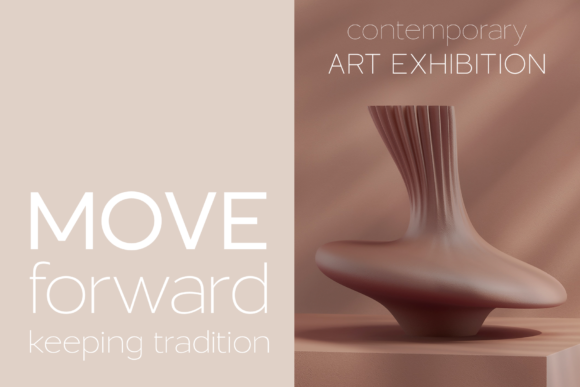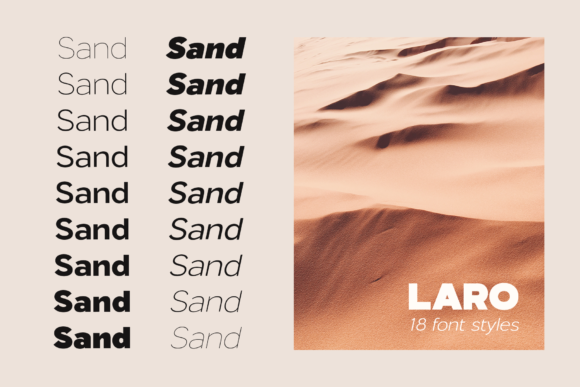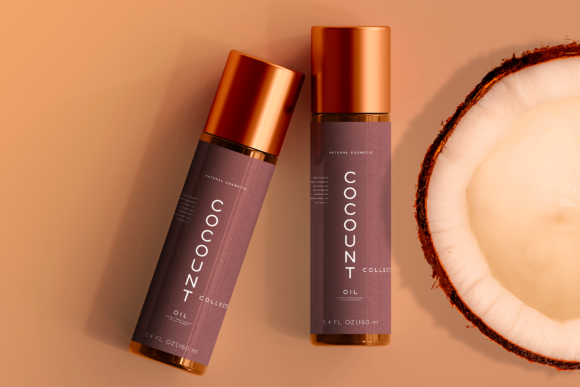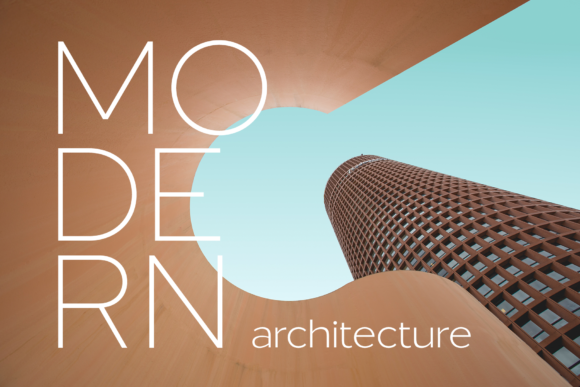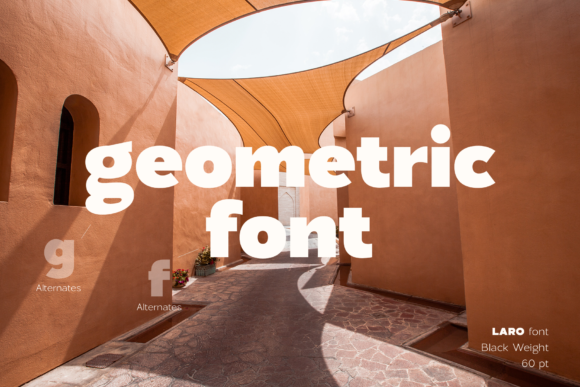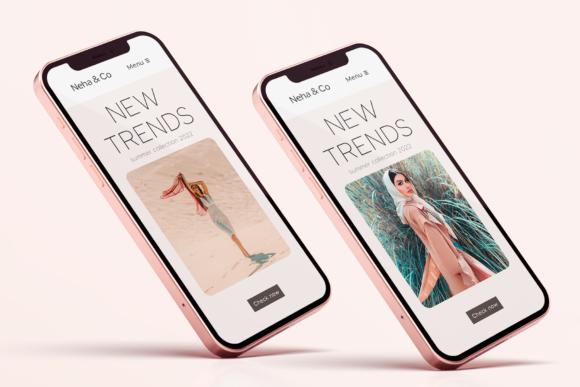
Introduction to Laro Font
As a creative person, have you ever felt like your design project is missing that special something to make it stand out? Maybe you’ve been staring at a blank page, trying to find the perfect font to elevate your idea. I know I have. But what if I told you that there’s a simple yet powerful font that can take your creative project to the next level?
Meet the Laro Font, a stunning sans-serif font that’s perfect for adding a touch of personality to your designs. With its thick, bold letters, this font is sure to grab attention and leave a lasting impression. And the best part? It’s free to download, making it an invaluable design resource for anyone looking to add a high-quality touch to their work.
Whether you’re a seasoned designer or just starting out, the Laro Font is a valuable addition to your toolkit. Its transparent background and clean lines make it a versatile choice for a wide range of projects, from branding and labels to cards and more.
Key Features of Laro Font
- High-quality design resource suitable for creative projects with a transparent background, allowing for versatile use.
- Includes multiple font styles and weights, offering users a range of options for their design needs.
- Designed with a modern aesthetic, the Laro Font is ideal for use in digital and print projects, including logos, branding, and marketing materials.
- Perfect for designers, artists, and creatives working on high-quality projects, the Laro Font offers a professional and sophisticated look.
Honest Review: Laro Font
As a designer, I’m always on the lookout for high-quality design resources that can elevate my creative projects. The Laro Font is one such resource that caught my attention, and I’m excited to share my honest review with you.
What works well: ✨ The Laro Font is a beautifully crafted font with a unique aesthetic that’s perfect for modern designs. Its clean lines and minimalist design make it ideal for a wide range of creative projects, from branding to digital products. The font also features a transparent background, making it easy to layer with other design elements.
What doesn’t work well: ⚠️ While the Laro Font is a great addition to any design arsenal, it’s not without its limitations. The font is available for free download, but it’s not available in as many languages as I’d like. Additionally, the font’s design may not be suitable for all types of projects, particularly those that require a more traditional or formal look.
Overall, I’m impressed with the Laro Font and would definitely recommend it to designers looking for a high-quality, modern font for their creative projects. Its free download and transparent background make it a great design resource to have on hand.
- Unique aesthetic
- Perfect for modern designs
- Easy to layer with other design elements
Laro Font
The Laro Font is perfect for a variety of design projects, including:
- Presentation slides and documents